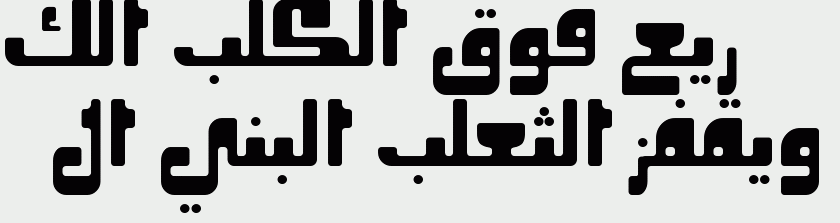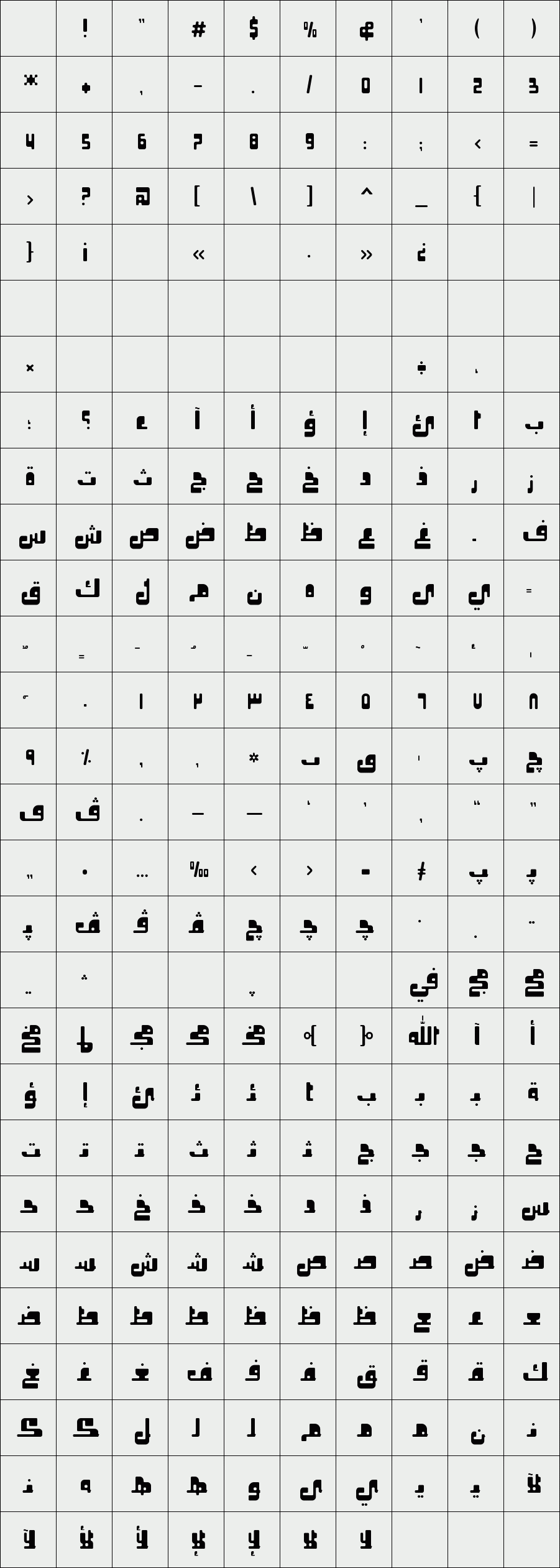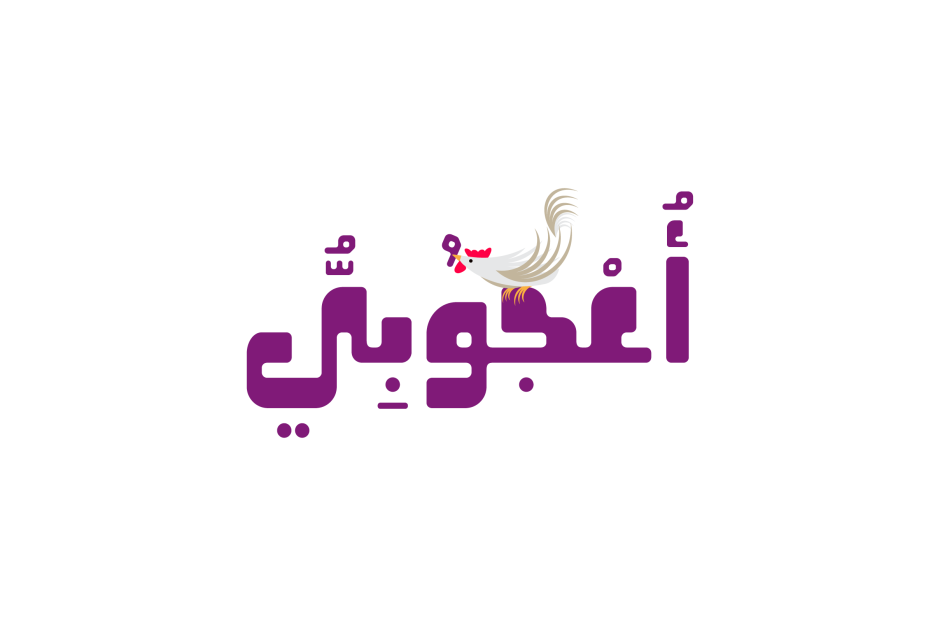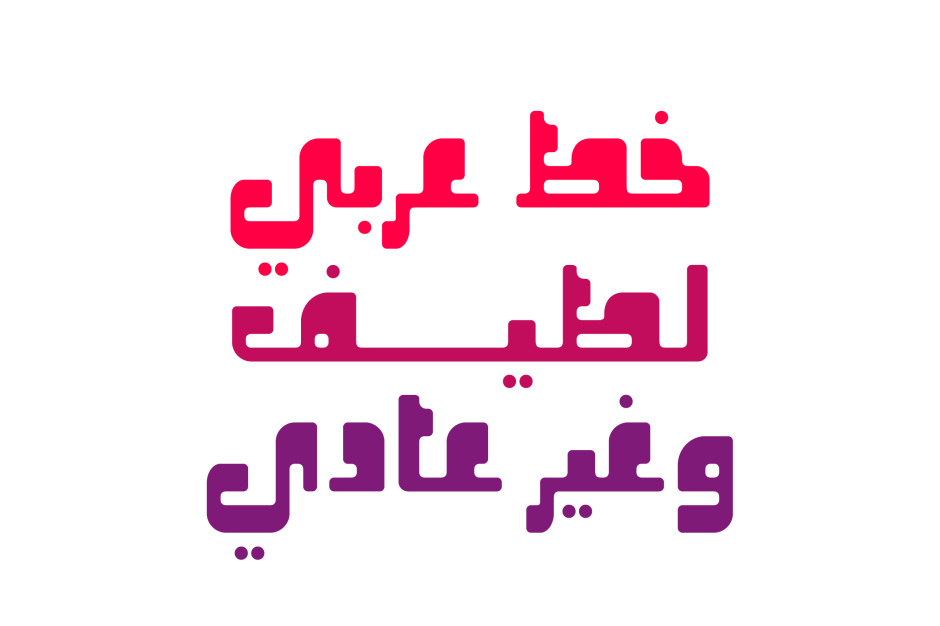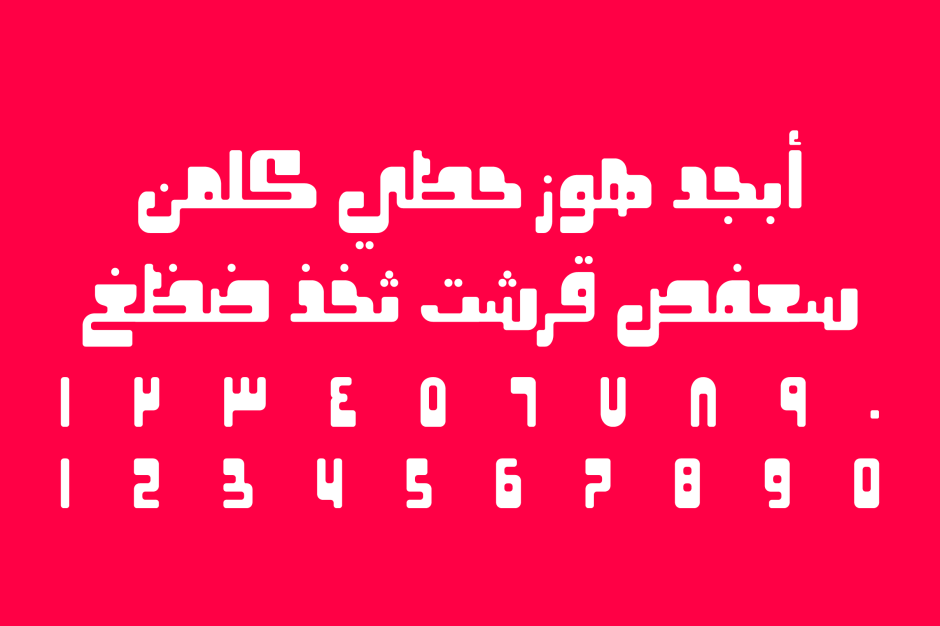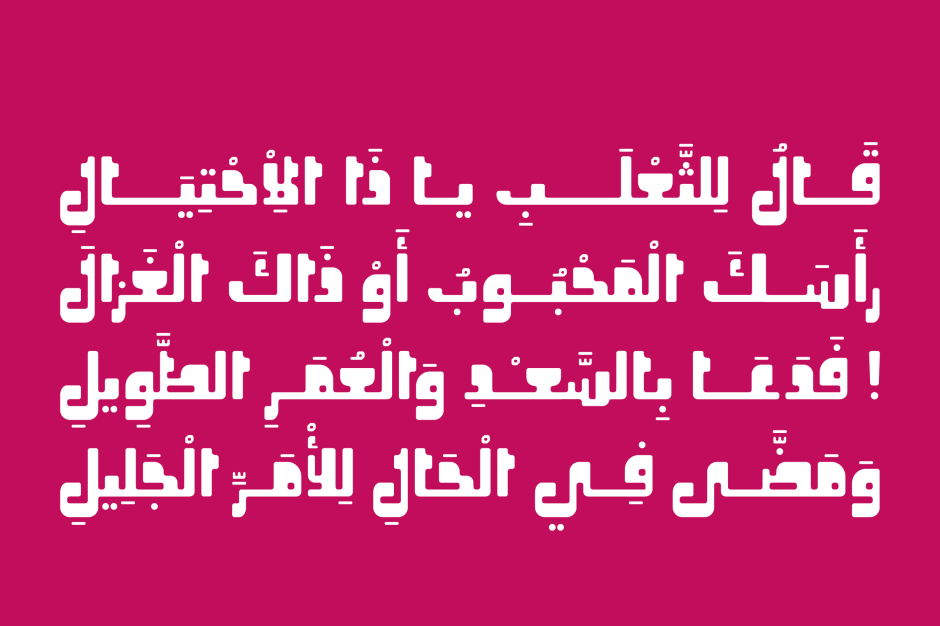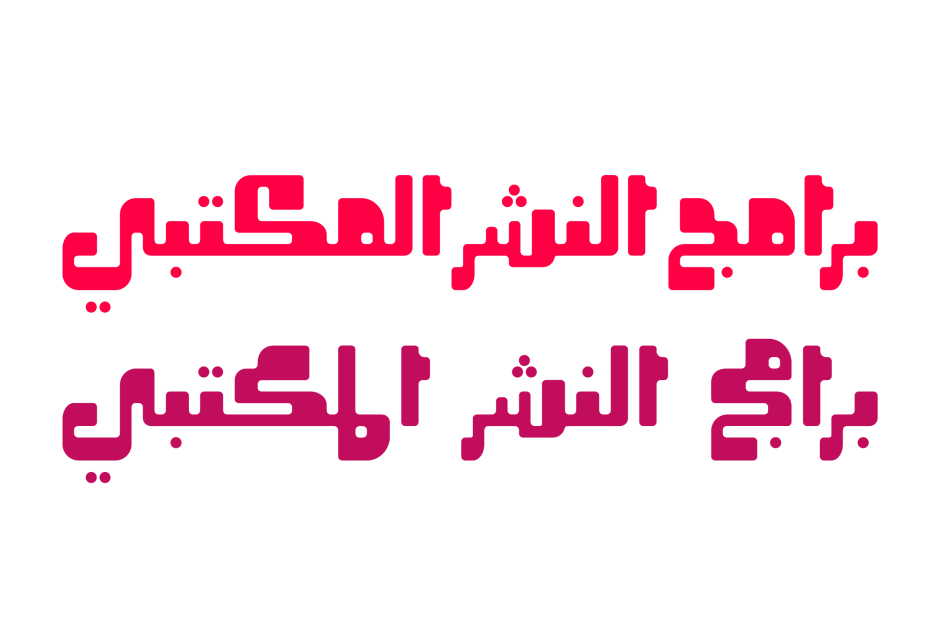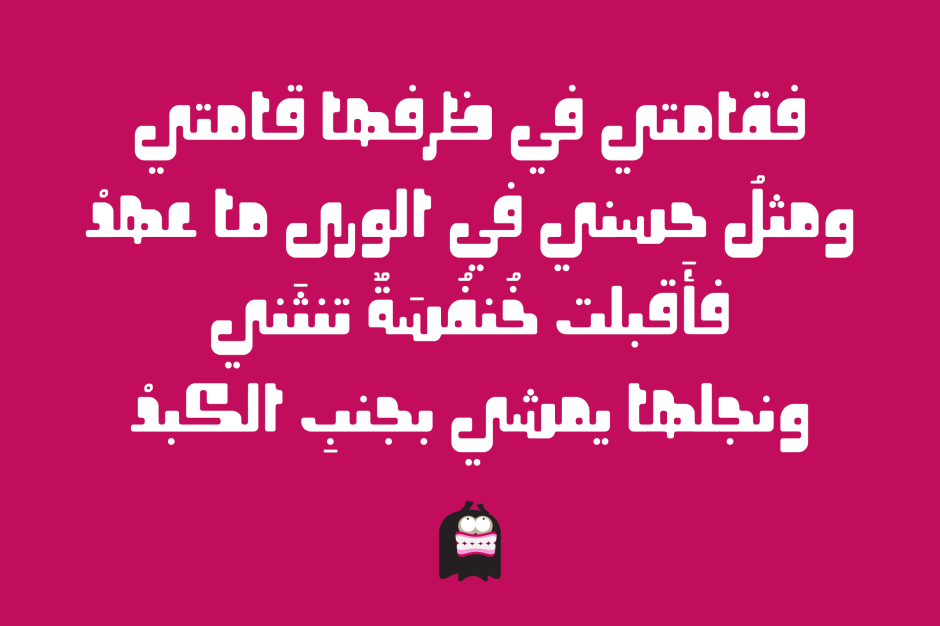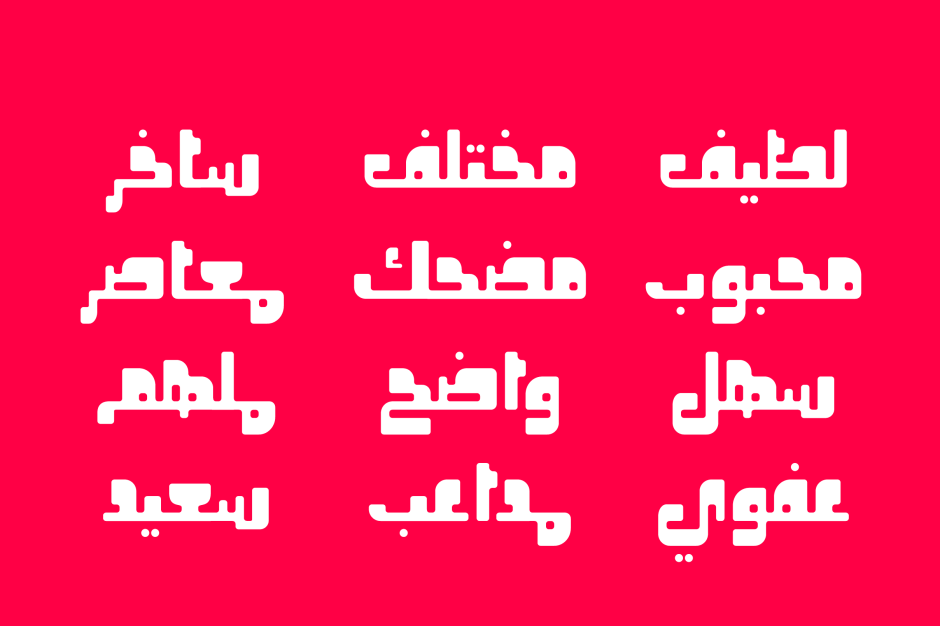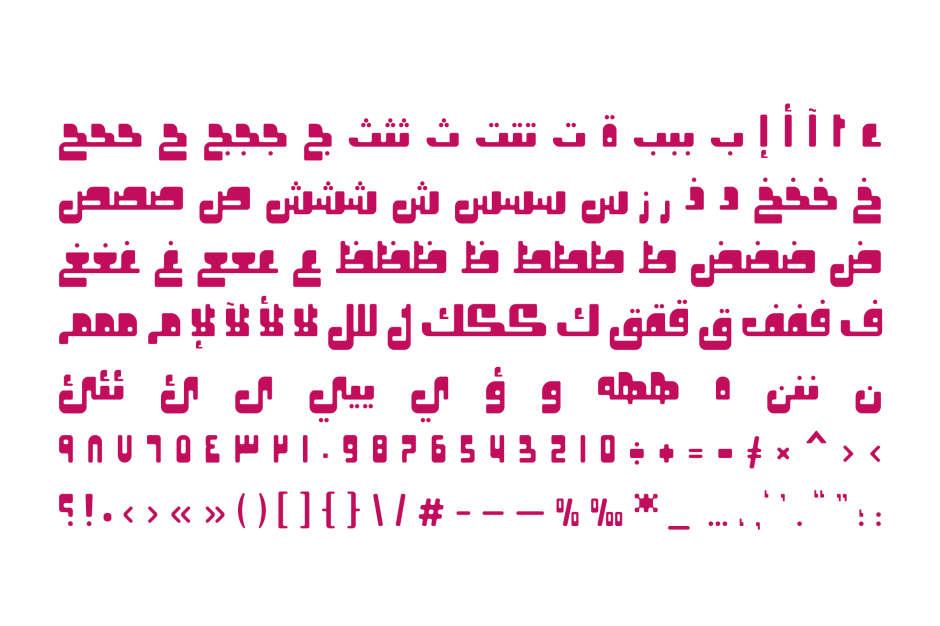
Oajoubi
Oajoubi is the Arabic word for Miraculous. This is a font that features a single weight with a heavy geometric structure, smooth-rounded edges and stylistic sets. Oajoubi suits many display purposes including infographics, publication, web design, advertising, packaging and brand identities.